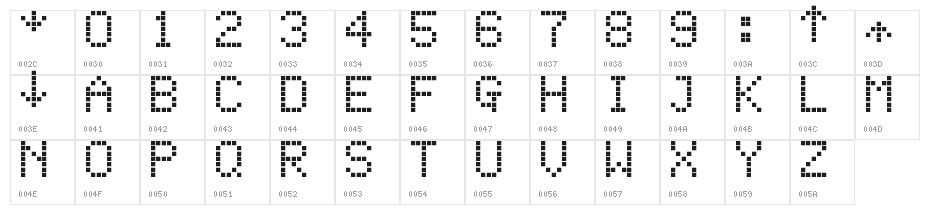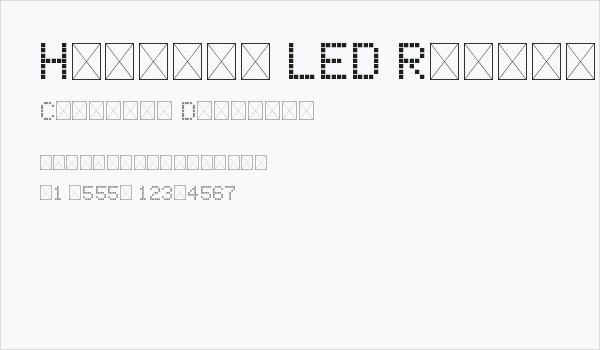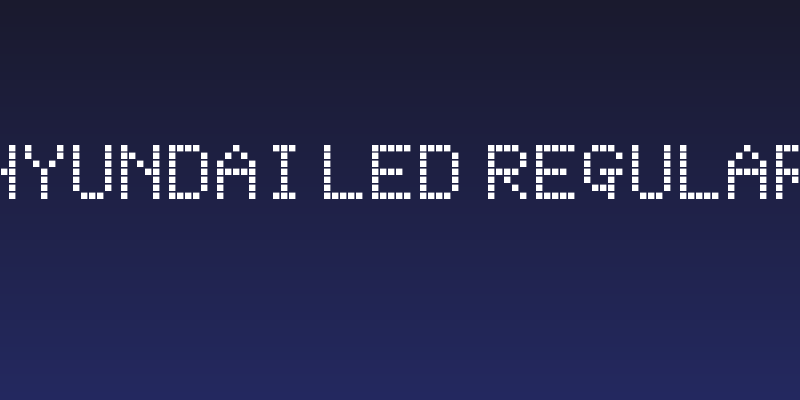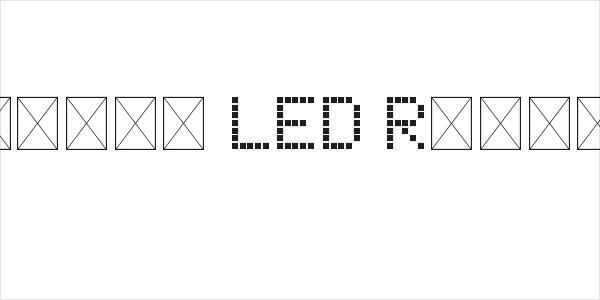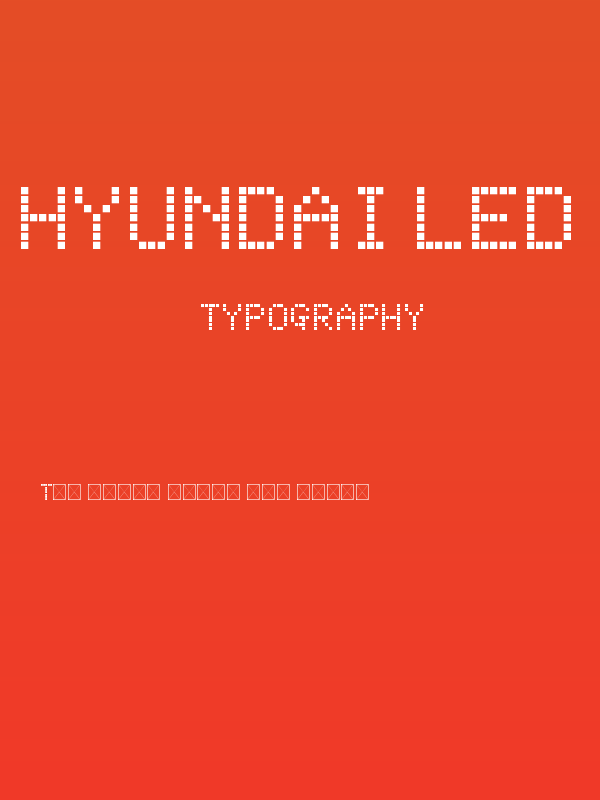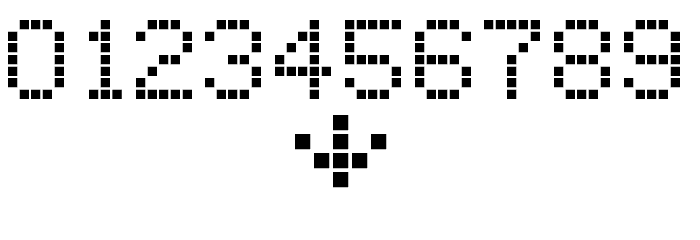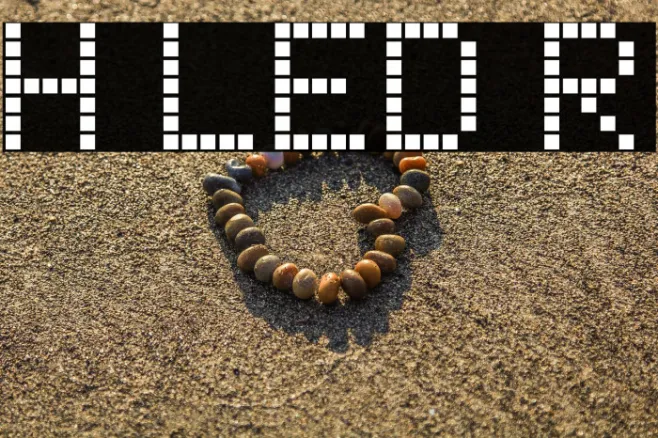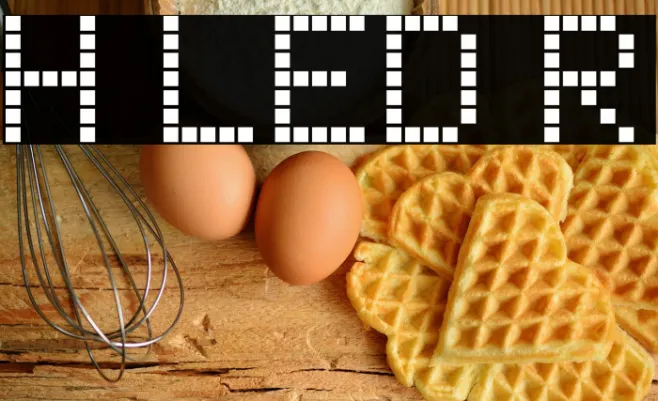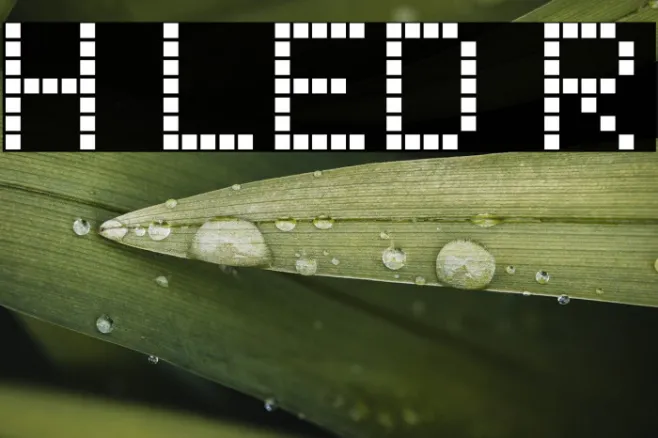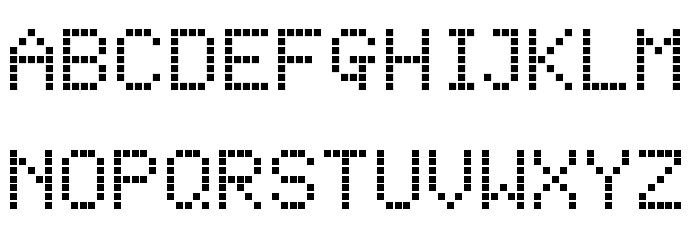
Hyundai LED Regular Font
Hyundai LED Regular Description
This font features a digital, pixelated design reminiscent of LED displays. Each character is constructed from a grid of small squares, creating a distinct, modern look that is both futuristic and retro. The uniformity and geometric precision of the characters give it a structured and mechanical feel. It is highly legible and clear, making it suitable for digital interfaces and displays. The font maintains consistent height and width across all characters, ensuring a balanced and cohesive appearance.
| Use Case | Digital displays, Tech interfaces, Retro designs |
| Proposed Projects | Ideal for digital displays, tech-themed designs, video game interfaces, and retro-futuristic projects. |